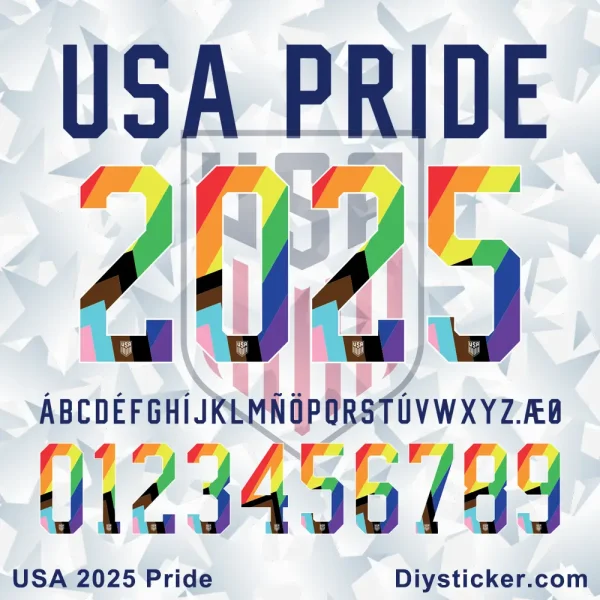
Celebrate with the USA 2025 Pride Font: A Patriotic Typeface for All
Embody the spirit of American pride with the USA 2025 Pride Font. This bold and distinctive typeface is designed for creators who want to add a touch of patriotism to their projects, from Independence Day celebrations and national events to custom apparel and community graphics.